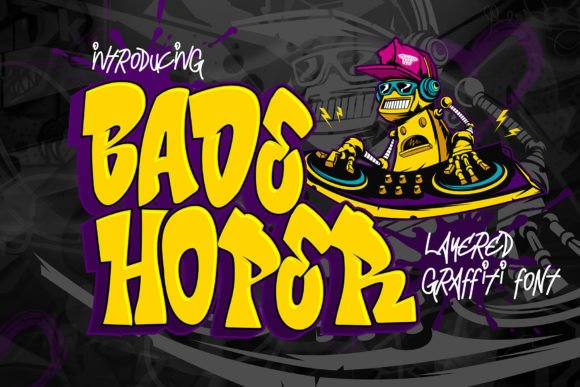
Journey into the realm of urban expression with "Bade Hoper," a captivating display font that ignites the essence of street art and graffiti culture. Crafted by the visionary minds at Cikareotype, this font is a symphony of sharp edges and bold strokes, commanding attention wherever it graces.
Unleash your creativity and let your designs dance to the beat of urban rhythm. "Bade Hoper" is the perfect partner for music posters, apparel designs, shirts, and streetwear, injecting a touch of edginess and attitude that resonates with the pulse of urban life.
Immerse yourself in the authentic street style or urban graffiti themes that "Bade Hoper" effortlessly embodies. Its unique style captivates, making it the ideal font for conveying powerful statements or adding a touch of rebellious charm to your projects.
Whether you're a seasoned designer seeking to make a lasting impact or an aspiring artist eager to leave your mark on the urban canvas, "Bade Hoper" is your ultimate font companion. Its versatility knows no bounds, empowering you to create designs that speak volumes and resonate with the energy of the streets.
With "Bade Hoper" by your side, transform your designs into captivating expressions of urban artistry. Let your creativity flow freely as you embrace the raw, edgy, and authentic essence of this remarkable font. Dare to be different, dare to make a statement, and let "Bade Hoper" guide you on your journey to design greatness.}